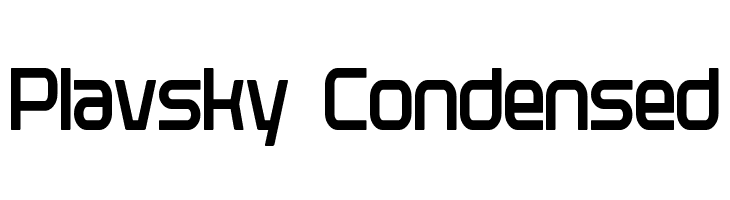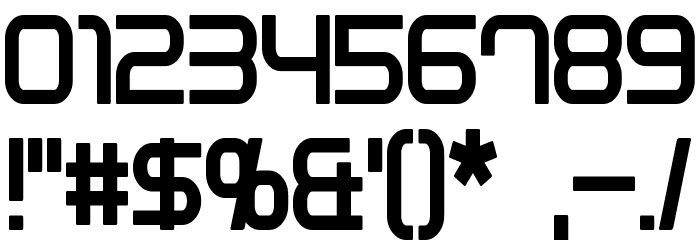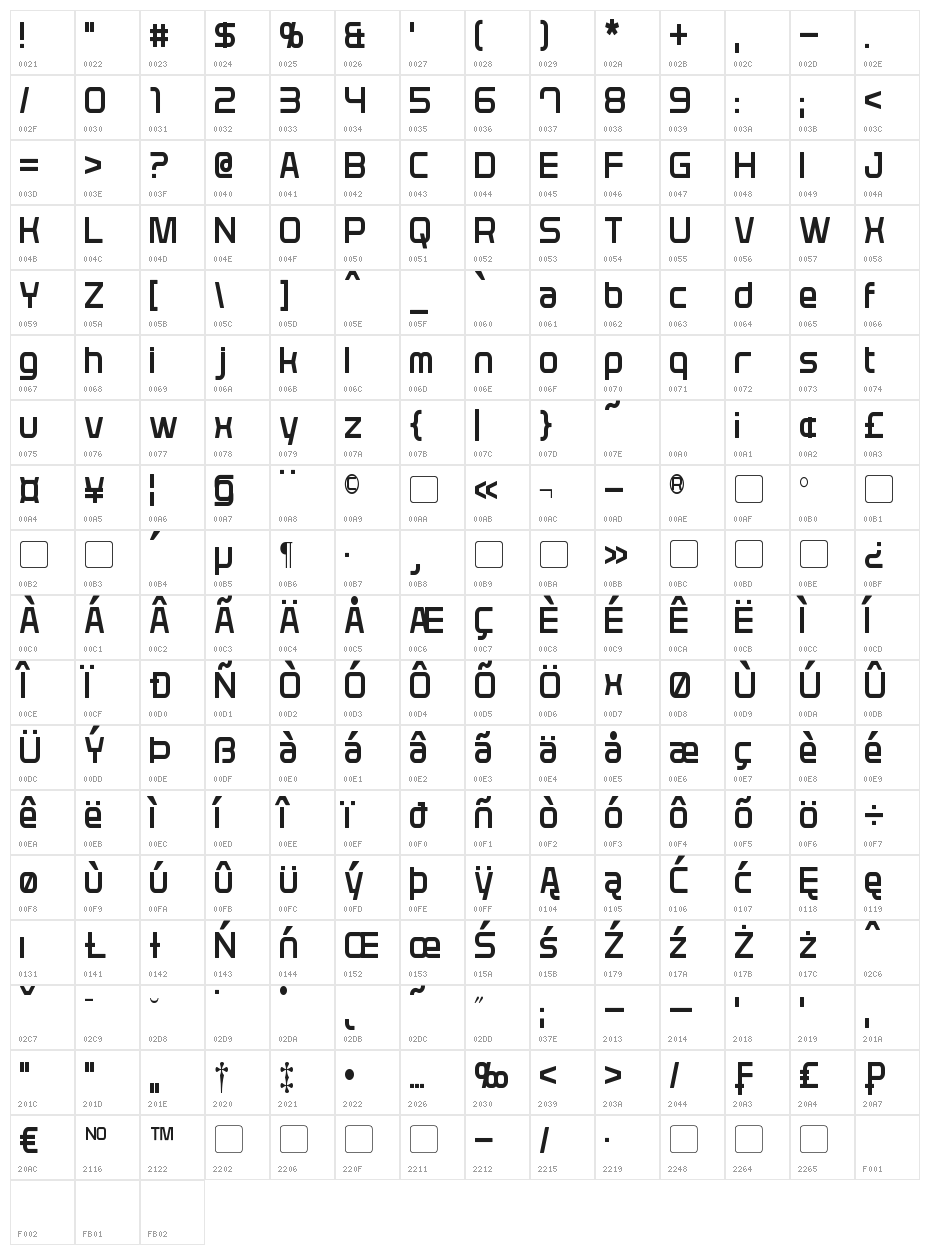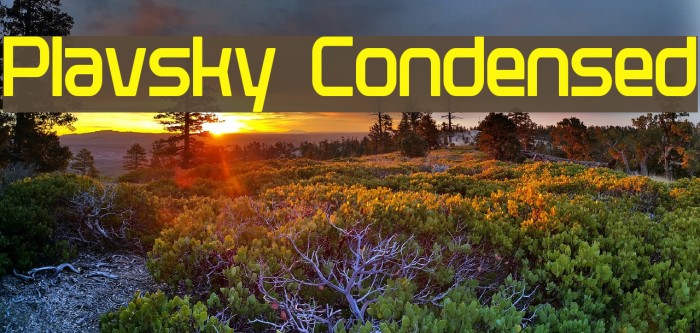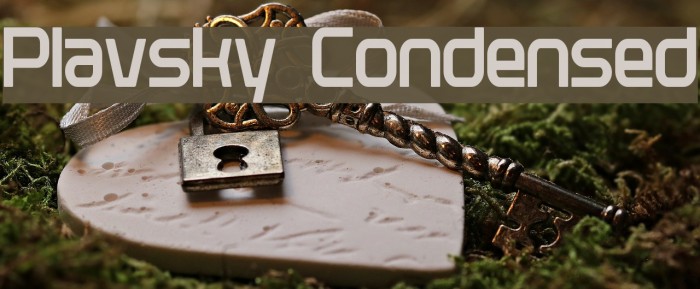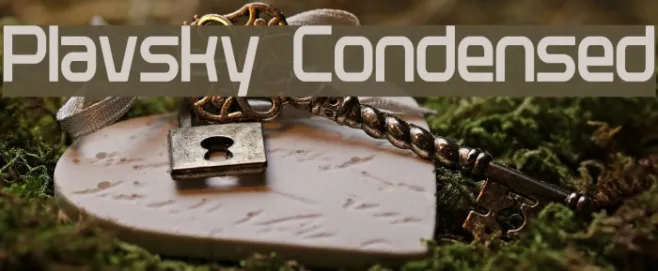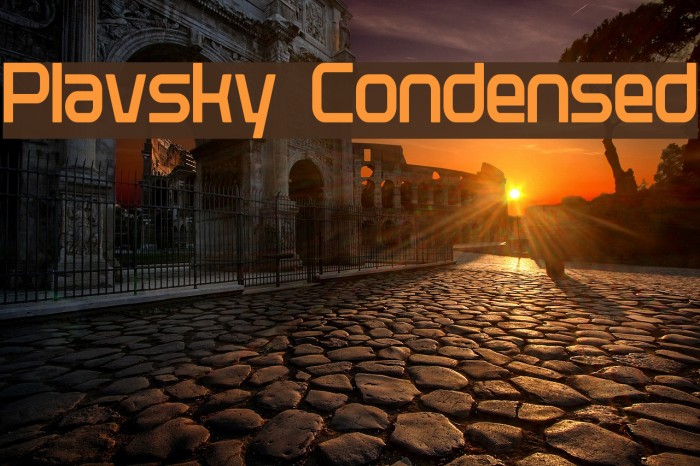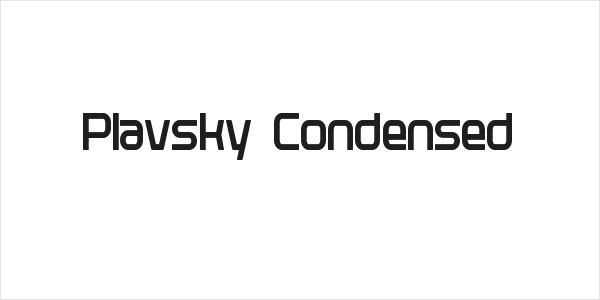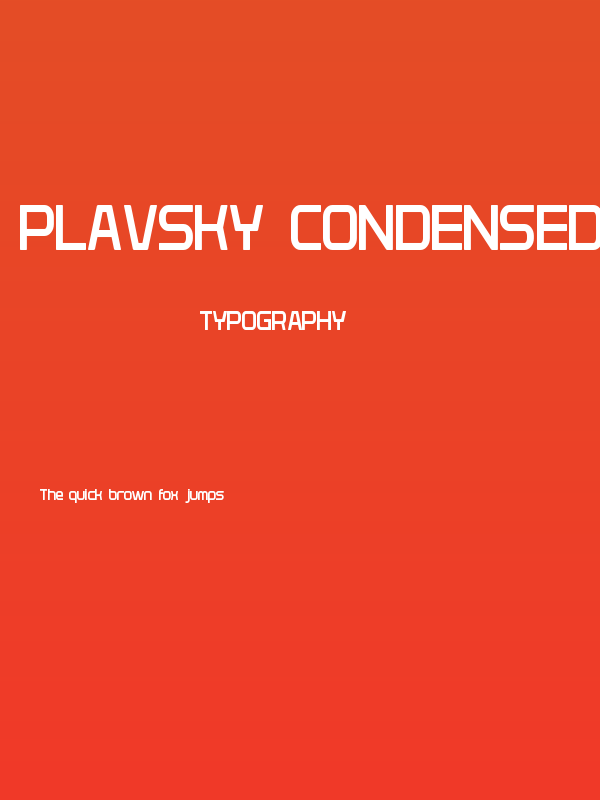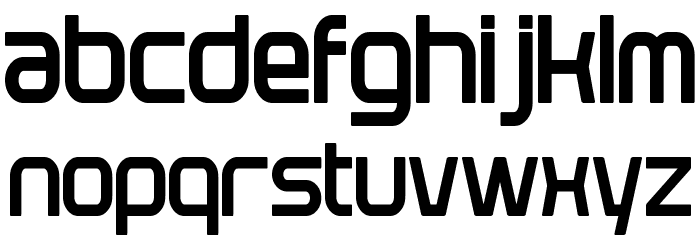
Plavsky Condensed Font
Plavsky Condensed Description
This font features a modern, geometric design with a condensed structure, giving it a sleek and contemporary appearance. The characters are uniform in height and width, creating a cohesive and balanced look. The strokes are consistent in thickness, contributing to a clean and polished aesthetic. The font's angular edges and straight lines enhance its modernity, making it suitable for a variety of digital and print applications. Its condensed form allows for efficient use of space, making it ideal for headlines and titles where space is limited.
| Use Case | Headlines, Logos, Digital Interfaces |
| Proposed Projects | Ideal for digital interfaces, branding, advertising, and editorial design where a modern and space-efficient typeface is needed. |